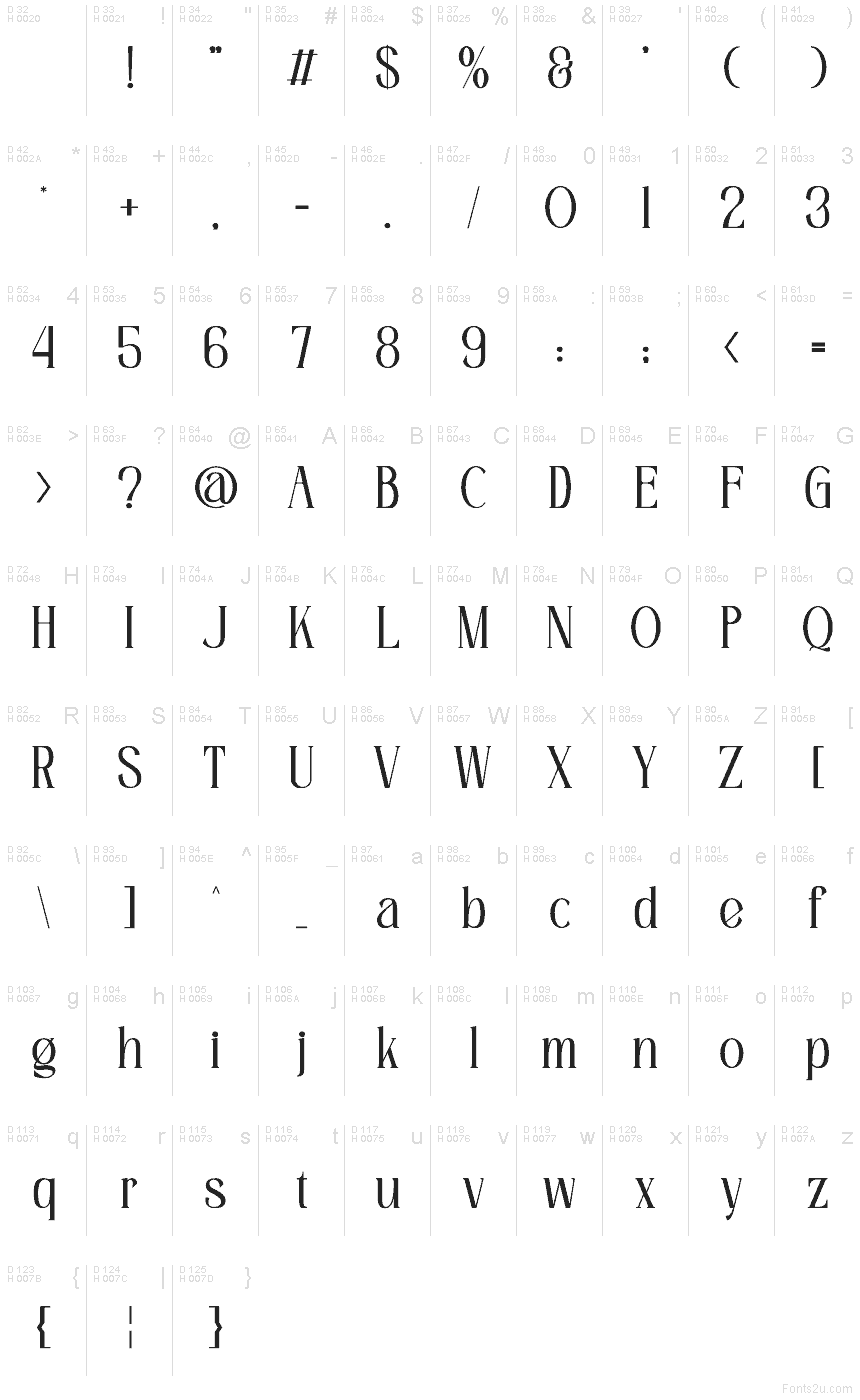
Refangi
Refangi font by Ermedia Studio is a free vintage serif. Built around crisp, diagonal cuts that slice through its curves, it balances inky, high-contrast strokes with sculpted, ribbon-like endings. The result feels tailored and luminous—classic bones with a daring edge—so headlines look carved rather than typed.
Using Refangi, you get a striking rhythm that commands attention without shouting. It shines on fashion branding, beauty packaging, editorial covers, posters, logos, and event invitations. This free font likes space—let it breathe large, then pair small captions with a clean geometric sans to steady the drama.